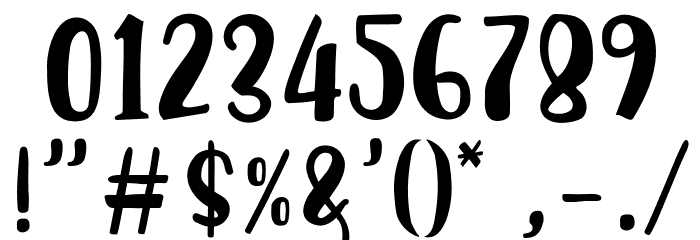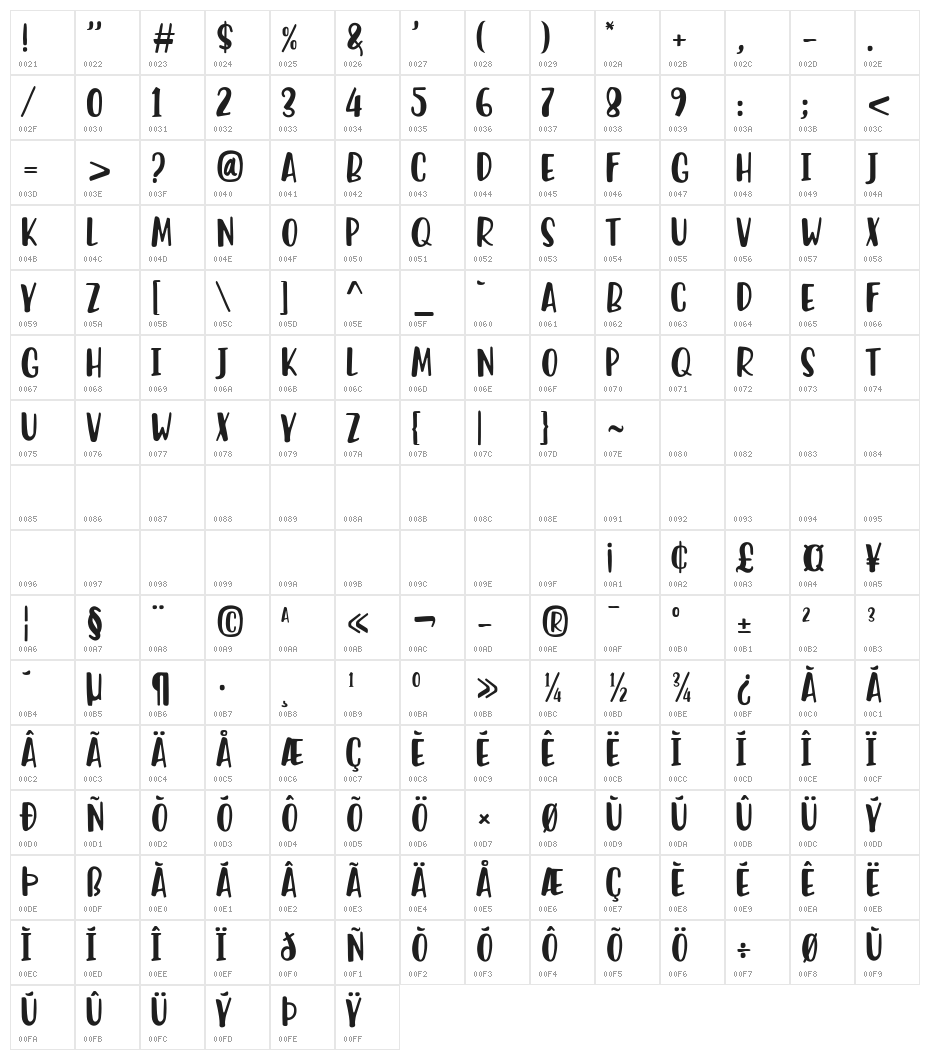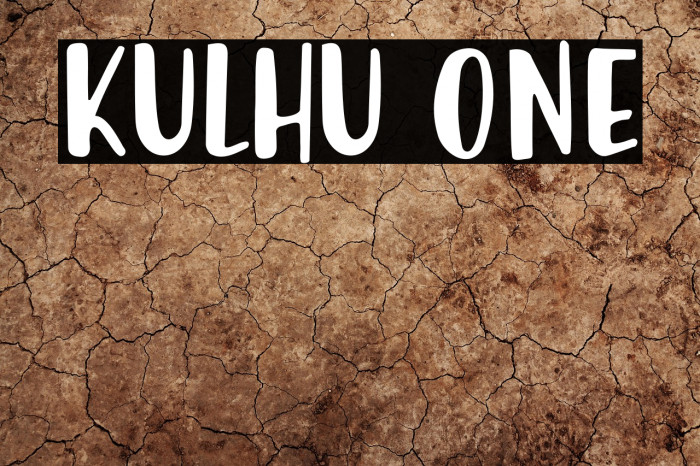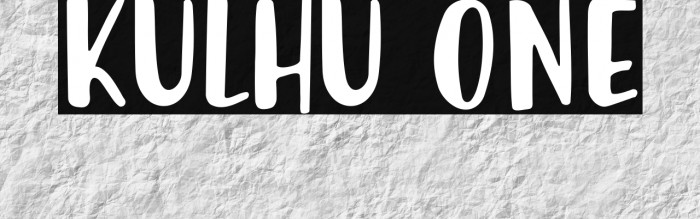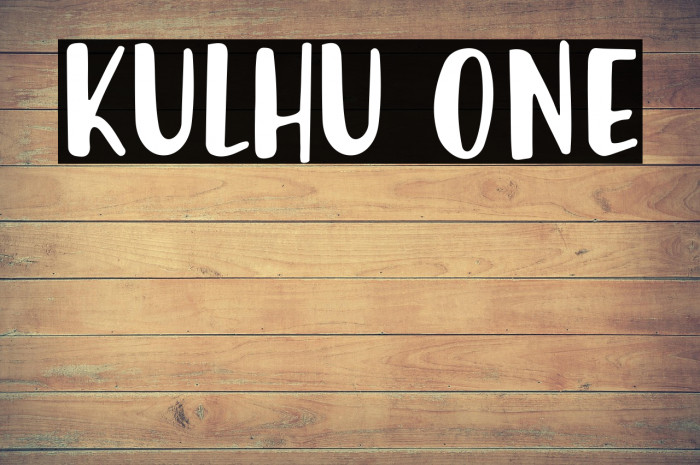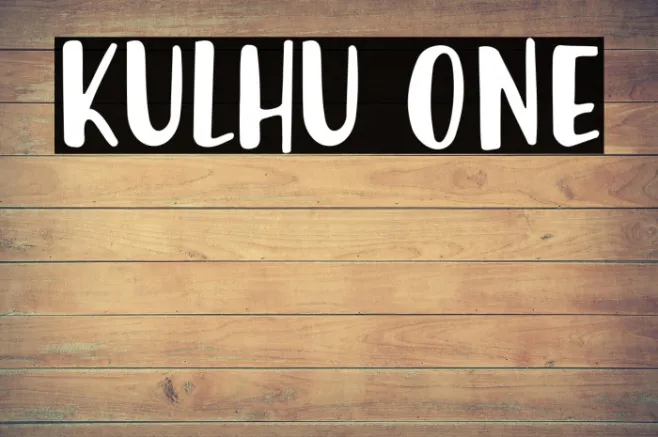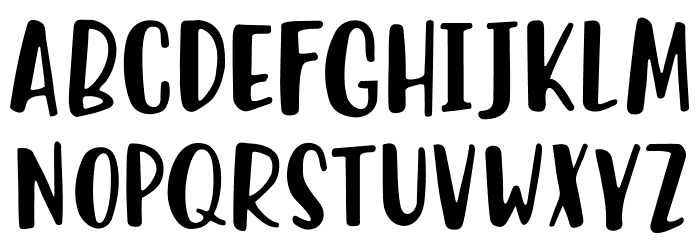
Kulhu One Font
Kulhu One Description
This font features a playful and bold handwritten style, characterized by its thick strokes and slightly irregular shapes. The letters have a casual and friendly appearance, with a dynamic flow that suggests movement. The uppercase and lowercase letters maintain a consistent style, while the numerals and special characters complement the overall design. The font's boldness makes it highly legible and suitable for attention-grabbing headlines or creative projects. Its unique style adds a touch of personality and charm, making it ideal for designs that aim to convey a sense of fun and approachability.
| Proposed Projects | Ideal for posters, greeting cards, children's books, and playful branding. |